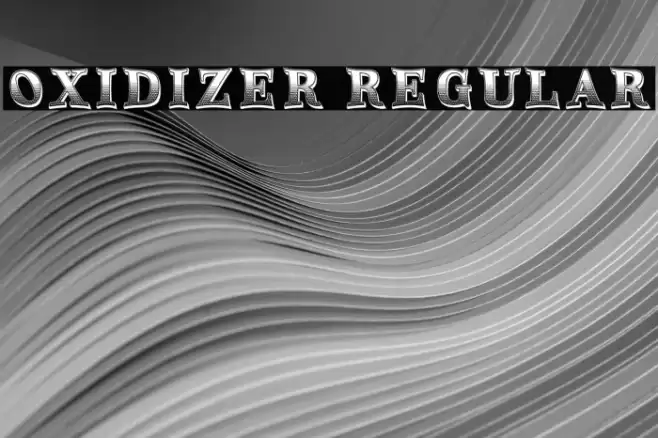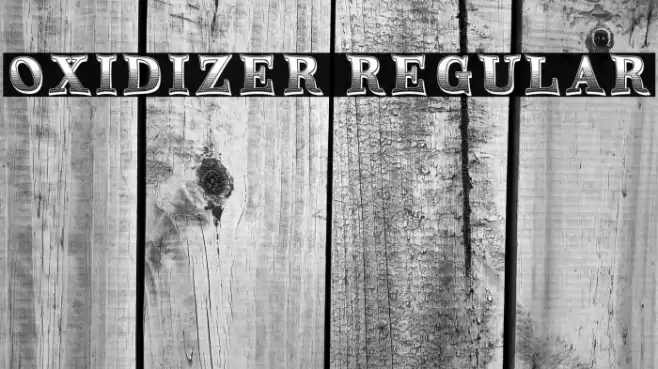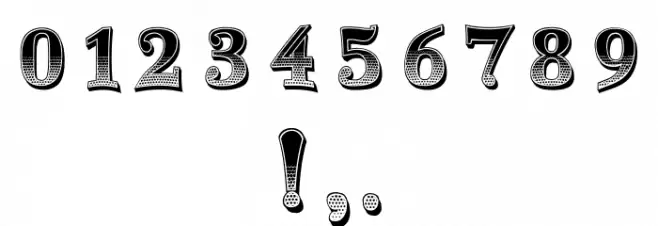
Oxidizer Regular Font
Oxidizer Regular Description
This font features a bold, decorative style with a vintage flair. Each character is designed with intricate detailing, including a dotted pattern within the strokes that adds depth and texture. The serifs are pronounced, giving the font a strong, authoritative presence. The combination of bold outlines and internal patterns creates a striking visual effect, making it ideal for attention-grabbing headlines or display purposes. The numbers and special characters maintain the same stylistic elements, ensuring consistency across all glyphs.
A bold, decorative font with vintage detailing and pronounced serifs from Uncategorized fonts.
- Proposed Projects: Ideal for vintage-themed posters, branding, and packaging designs that require a bold, eye-catching typeface.
- Overall Style: Vintage